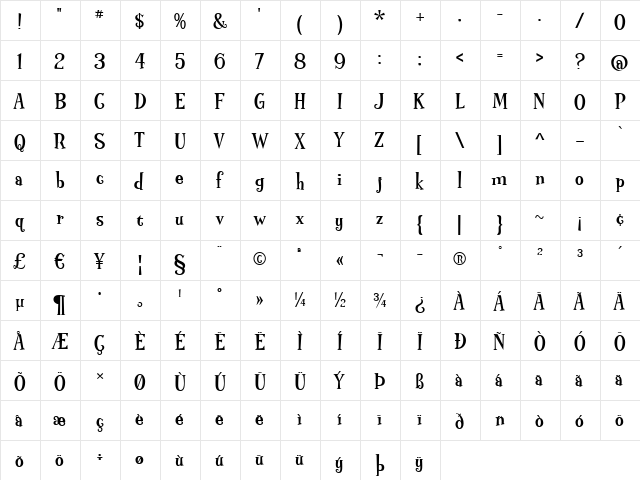
Pink Martini Bold Regular
Design Context for Pink Martini Bold Typeface
Pink Martini Bold offers clean, dependable letterforms without strong stylistic allegiance, making it a practical choice for designers who need flexibility. Its bold stroke weight gives it real presence on the page.